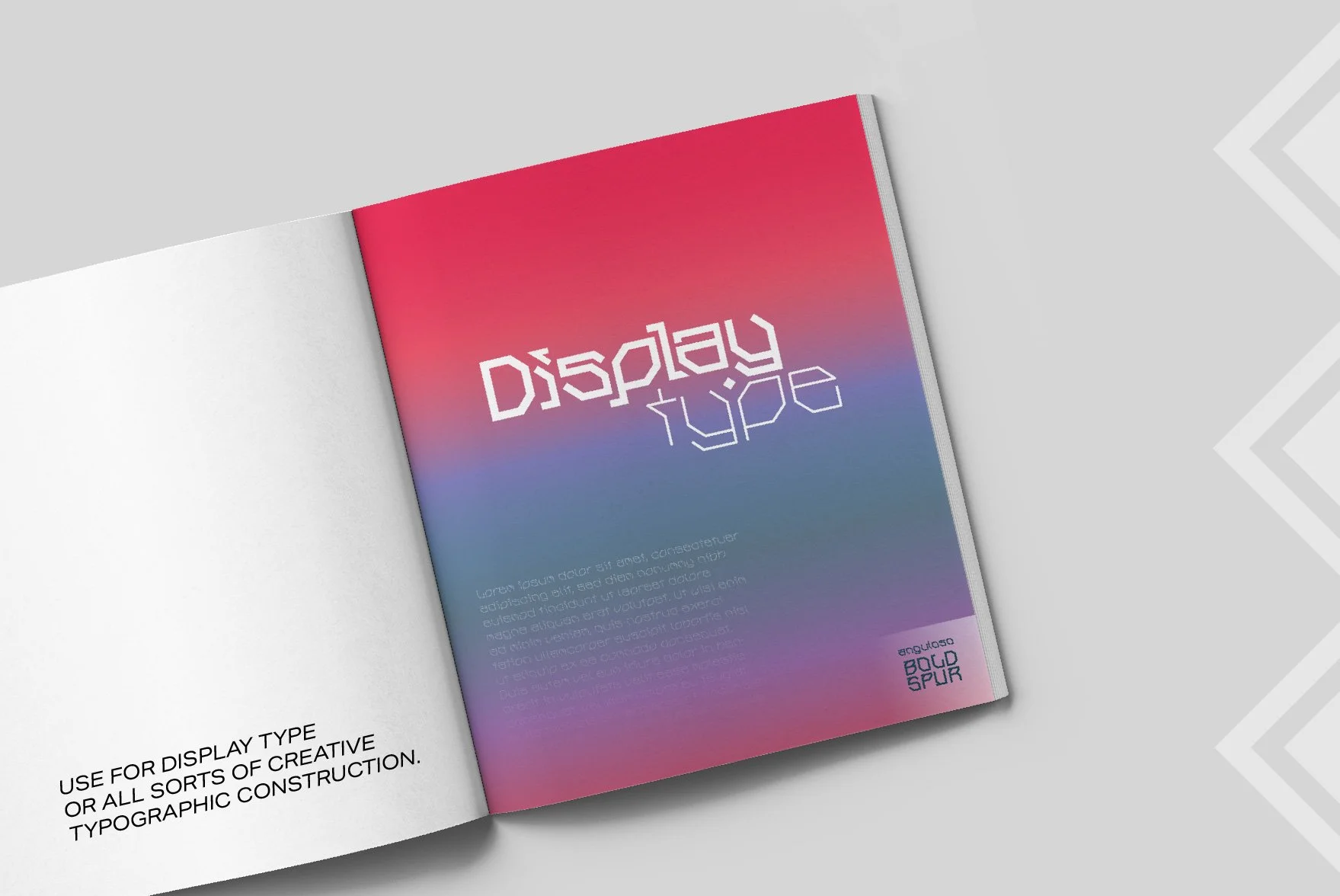
Anguloso
Anguloso is a funky, geometric, exploratory angular display typeface that uses abstract letterforms. This font family offers a unique, versatile approach to designing with typography. The typeface includes 12 font styles and was designed using only vertical, horizontal, and 45° angled strokes. Includes numbers, basic punctuation, and a variety of commonly used special characters.